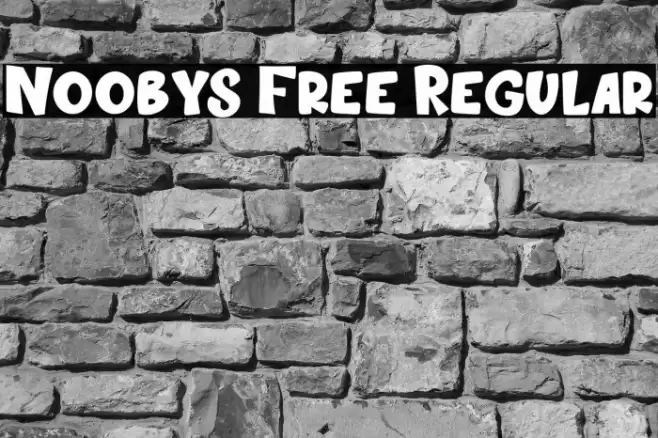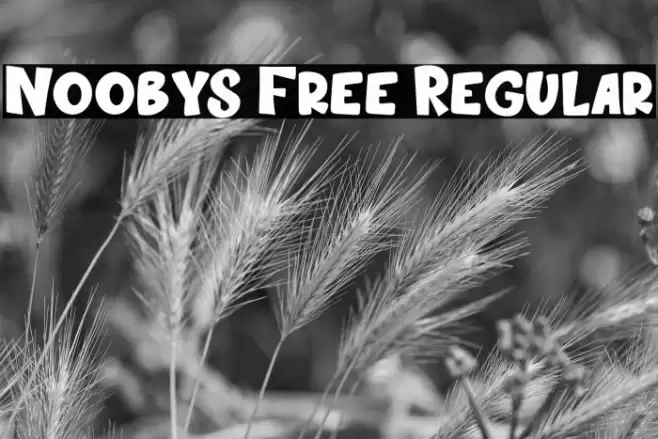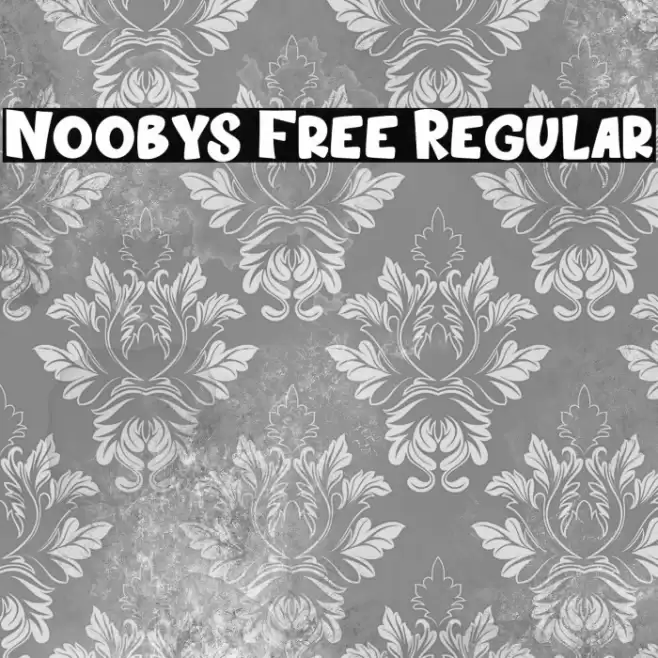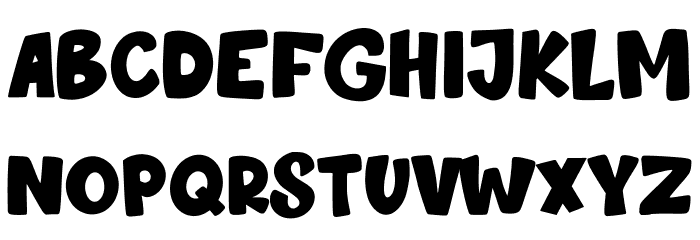
Noobys Free Regular Font
Noobys Free Regular Description
This playful and bold font features a whimsical style with exaggerated curves and a chunky appearance. The characters are designed with a sense of fun and creativity, making them stand out with their unique, irregular shapes. The uppercase letters are particularly eye-catching, with a strong presence that commands attention. The lowercase letters maintain the same playful aesthetic, ensuring consistency throughout the typeface. The numbers and special characters are equally bold and distinctive, adding to the font's overall charm. This font is perfect for projects that require a lively and engaging look.
A bold, playful font with exaggerated curves and a whimsical style from Cartoon fonts.
- Font: Noobys Free Regular
- Proposed Projects: Ideal for children's books, playful branding, posters, and creative projects.
- Overall Style: Playful, Whimsical